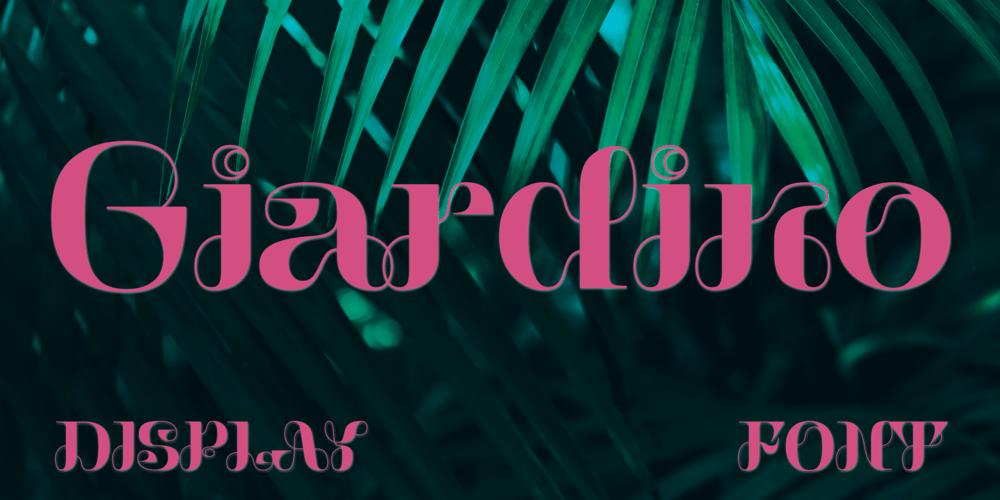
Giardino
Giardino font
Giardino Font Family was designed by Tasya Petelina and published by Bake me a font. Giardino contains 1 styles and family package options. Giardino is a contemporary display serif font. Inspired by nature it has a unique floral vibe with elegant graphic elements. Both graceful and expressive it makes an unforgettable typographical image. It is a great choice for branding, packaging and advertising, if you want to represent a vegetable world without directly illustrating it.Giardino consist of basic sets for Latin and Cyrillic, figures, punctuation, many ligatures and few contextual alternatives (Stylistic Sets 1/2). It has 194 glyphs.